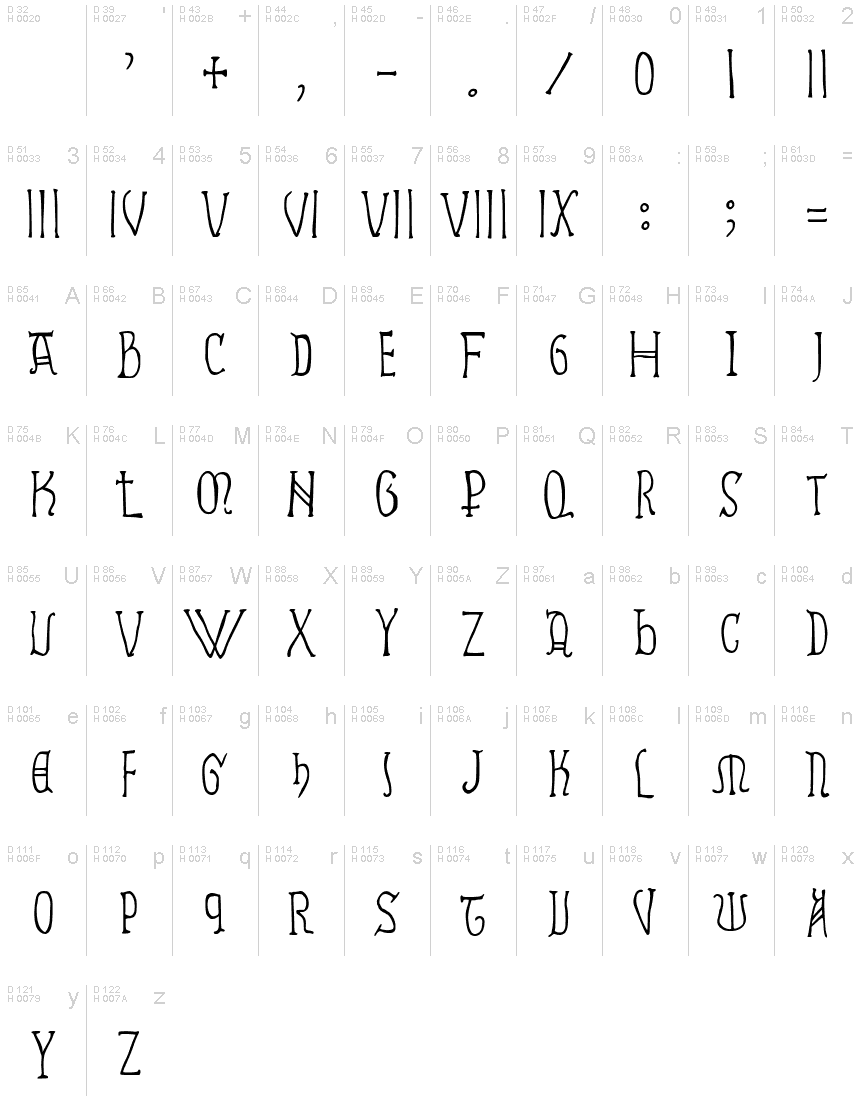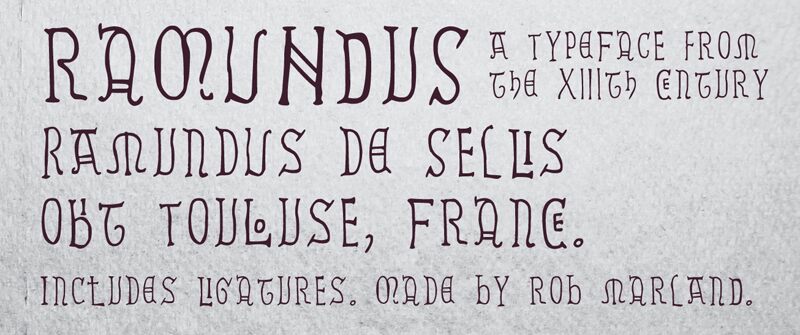
Ramundus Regular
Ramundus is based on the epitaph of Ramundus De Sellis (d. 1235) and other 13th century epitaphs held at the Muse des Augustins, Toulouse, France.
Rob Marland
Based on the epitaph of Ramundus De Sellis (d. 5 June 1235) at the Musee des Augustins, Toulouse.